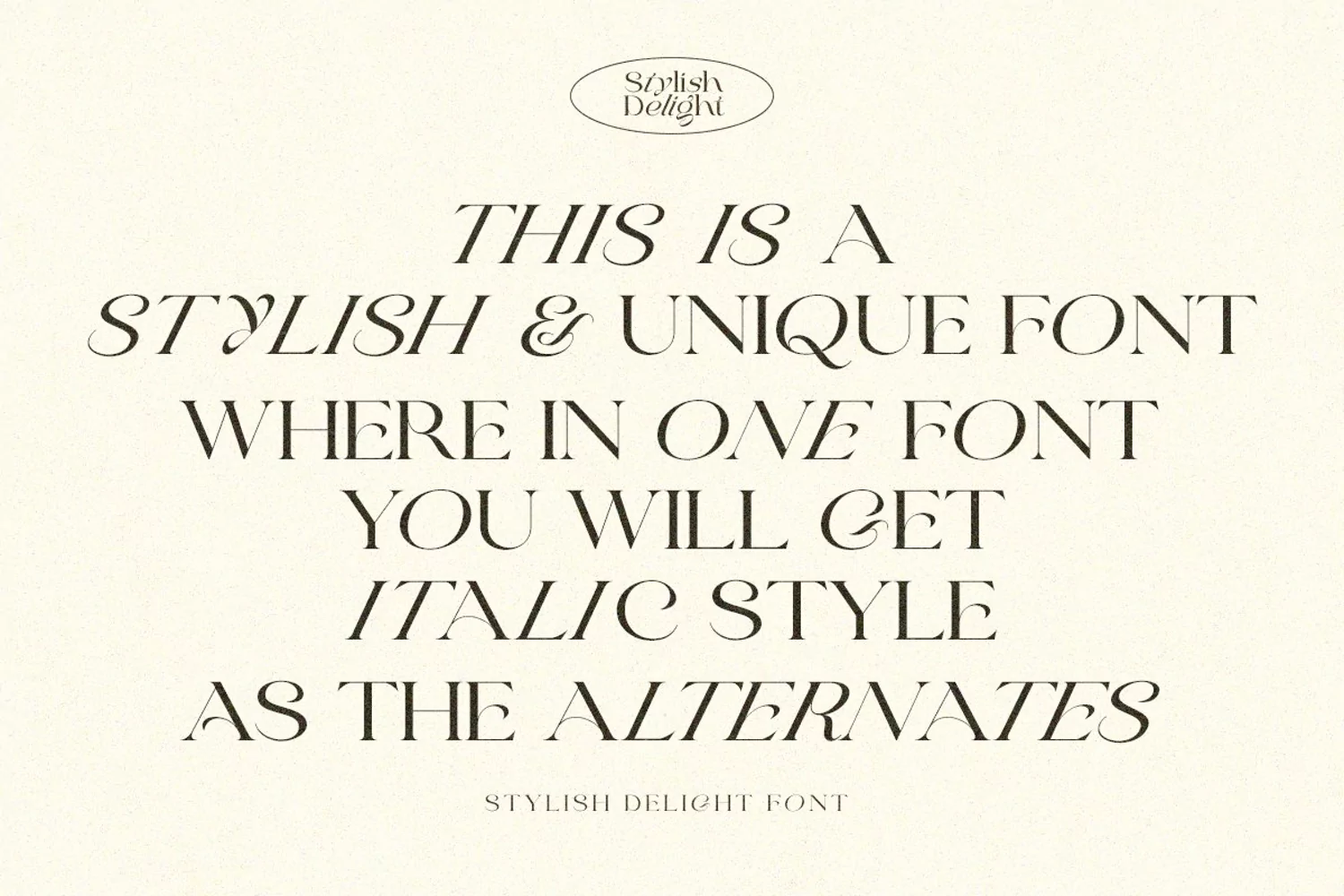
Stylish Delight is a stylish and modern serif with unique italic as alternates that will make your presentation or logo more attractive and fashionable! You can use this font for your branding, logotype, or even quotes. This fonts support Multi Language. By combining standard and alternative characters, you will get the best look with endless possibilities.